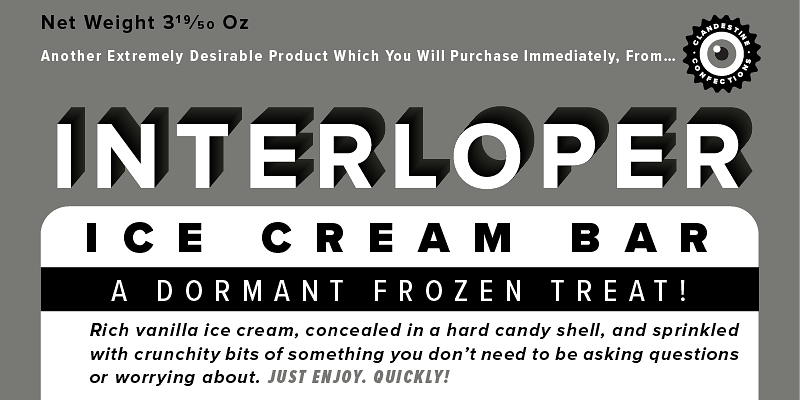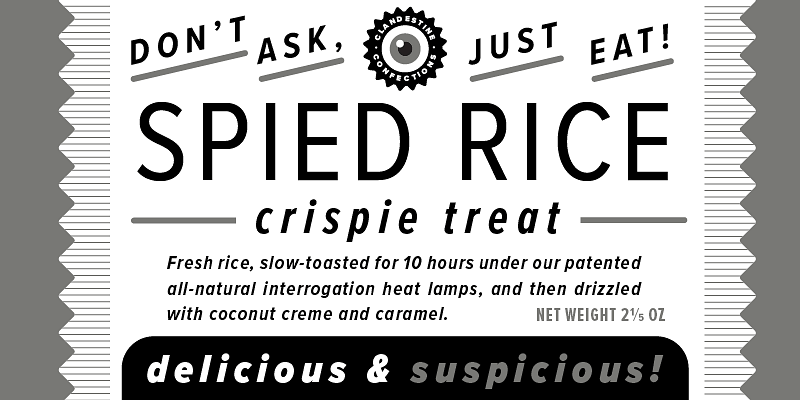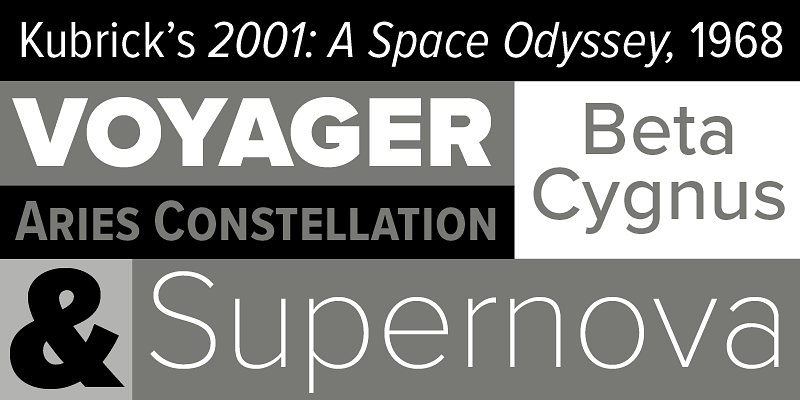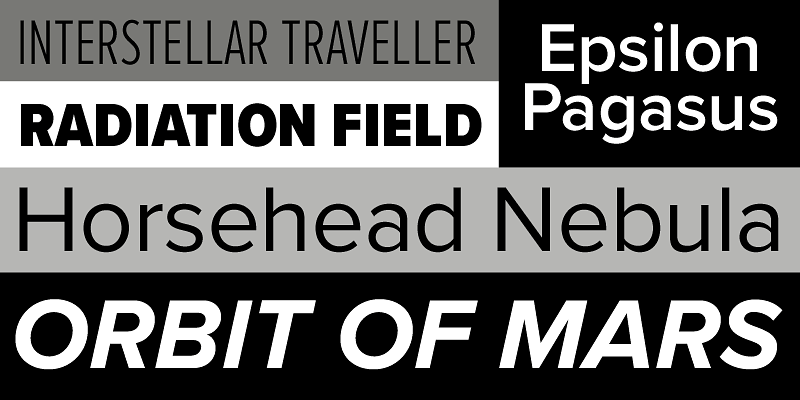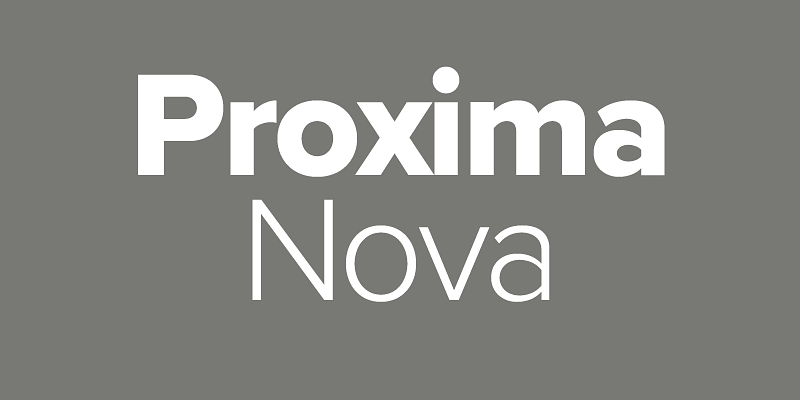
Proxima Nova Font
The Proxima Nova Font is perfect for modern corporate branding, tech startup identities, contemporary web interfaces, sleek mobile applications, professional presentation materials, clean advertising campaigns, sophisticated editorial layouts, progressive business communications, digital platform design, and innovative product packaging.
What makes the Proxima Nova Font so exciting is its perfect synthesis of geometric precision with humanist warmth that creates an ideal balance between technical sophistication and approachable communication for contemporary digital and print applications. This exceptional typeface features refined geometric construction, carefully optimized proportions, and subtle humanist characteristics that establish modern professionalism perfect for brands seeking both cutting-edge appeal and genuine accessibility. The font's contemporary personality and versatile functionality make it an outstanding choice for modern organizations seeking to communicate innovation, reliability, and progressive thinking with authentic human connection.
The Proxima Nova Font family includes comprehensive weight variations, featuring Thin, Light, Regular, Medium, Semibold, Bold, and Black options, plus condensed and extended versions with matching italics. Each variation maintains the signature modern appeal while offering different levels of visual impact and typographic sophistication, providing designers with complete flexibility for creating contemporary brand hierarchies and sophisticated digital communication systems.
The sophisticated geometric engineering of Proxima Nova Font demonstrates expert modern typography craftsmanship, with each character optimized for perfect digital rendering, exceptional screen legibility, and visual consistency across all contemporary platforms. The font's comprehensive character set includes international language support, advanced OpenType features, modern punctuation, and digital-optimized spacing, ensuring seamless integration into global digital workflows and professional communication systems.
Expertly engineered for both digital and print modern applications, this remarkable font maintains perfect clarity and contemporary presence across all media formats and technological contexts. From responsive web interfaces to large-scale corporate installations, Proxima Nova Font performs exceptionally while preserving its distinctive modern character and professional digital sophistication.